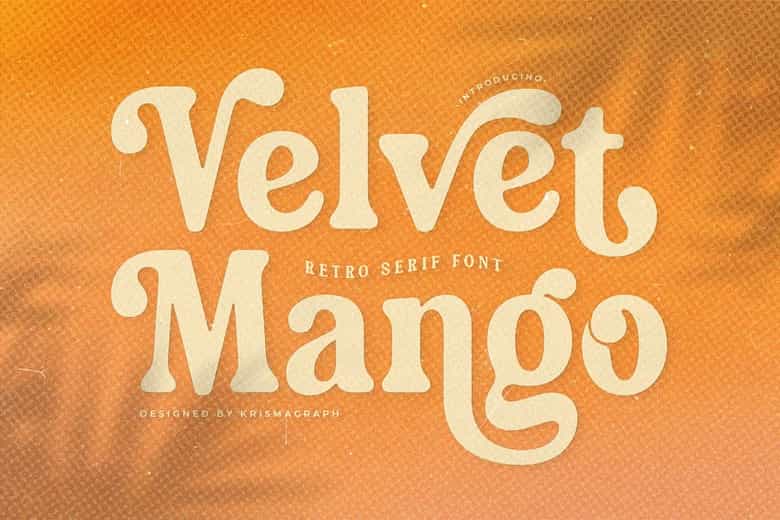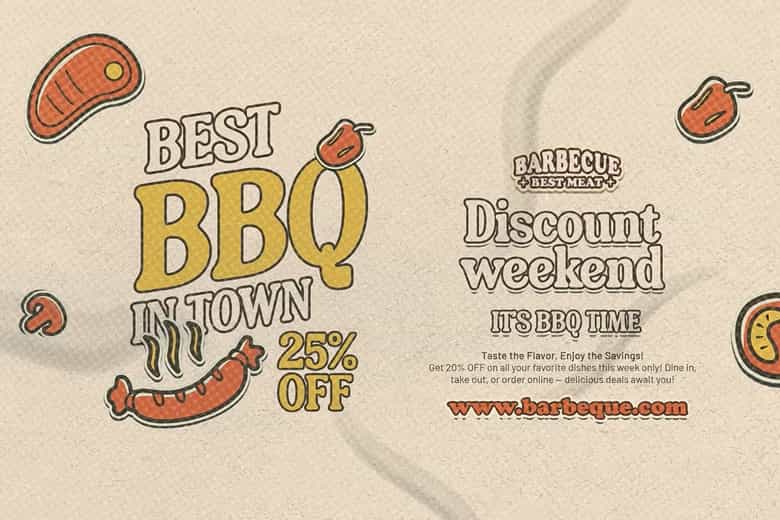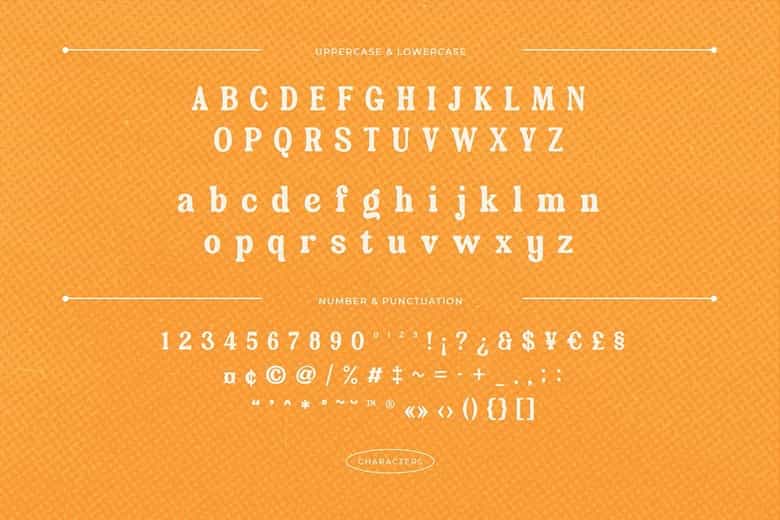
Velvet Mango is a playful and bold retro serif typeface that is founded on the beauty of the old design along with the nostalgia design. Full of gooey curves, squishy terminals and springy letterforms, Velvet Mango is an ideal choice of font when your project requires a shot of retro cool and a hug of gregarious character.